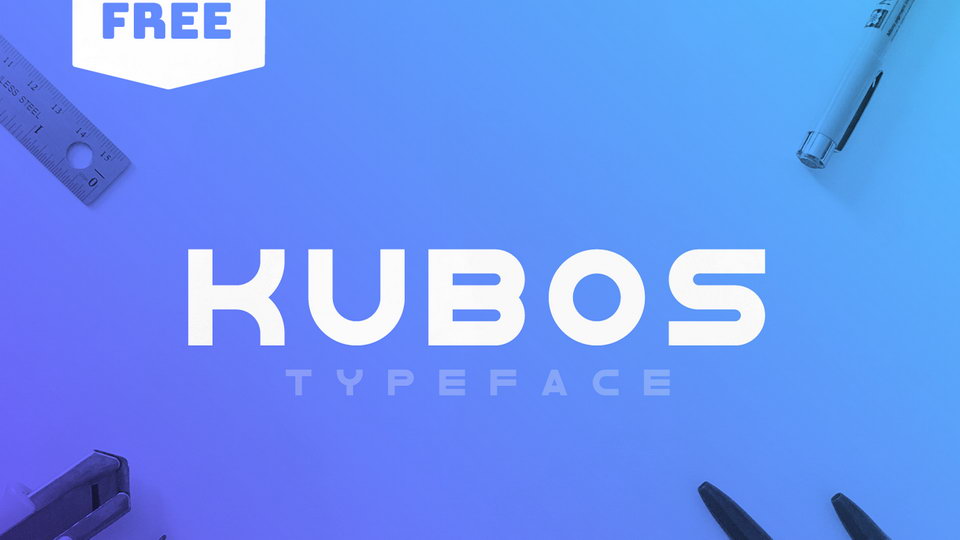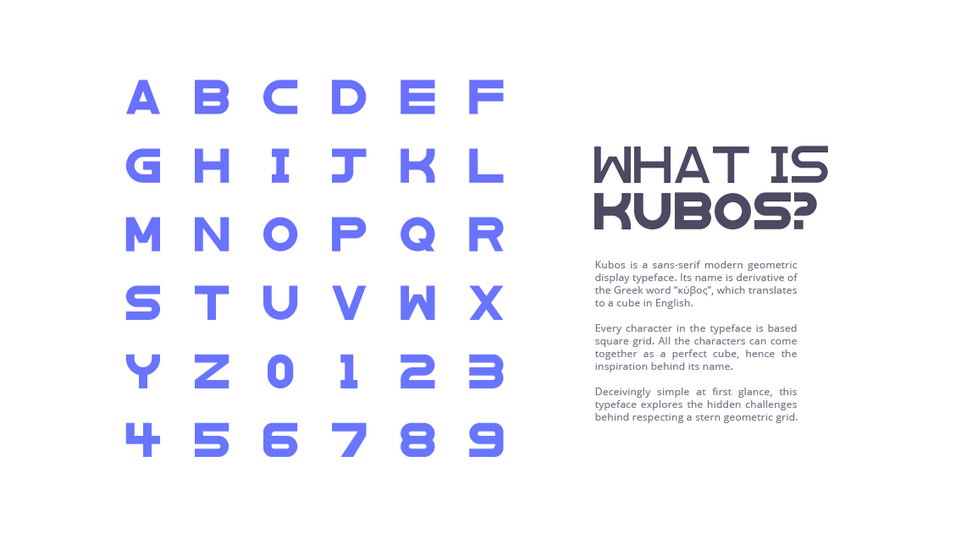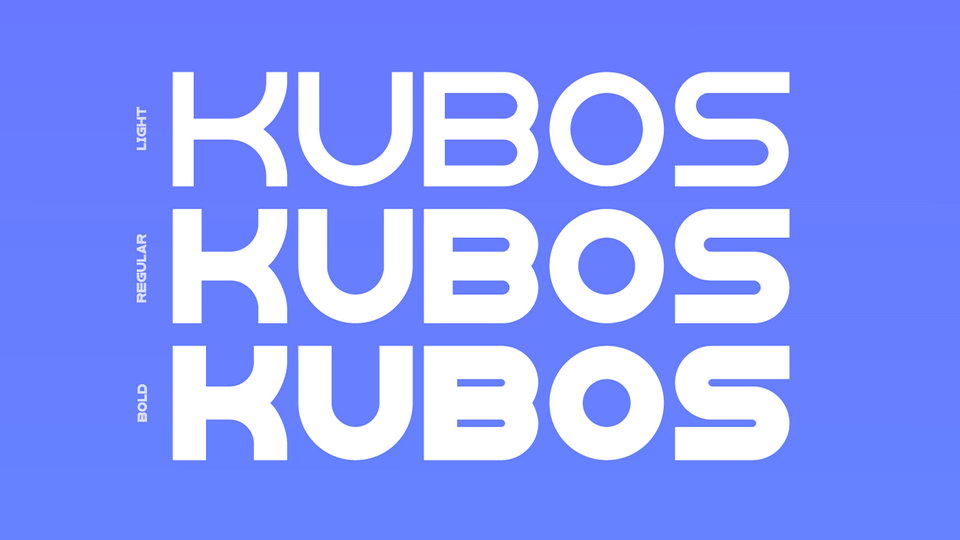
Kubos is a modern geometric sans display font family. Its name is derivative of the Greek word “κύβος”, which translates to a cube in English. Every character in the typeface based on the square grid, all glyphs can come together as perfect cube.
Deceivingly simple at first glance, Kubos typeface explores the challenges behind respecting geometric grid.